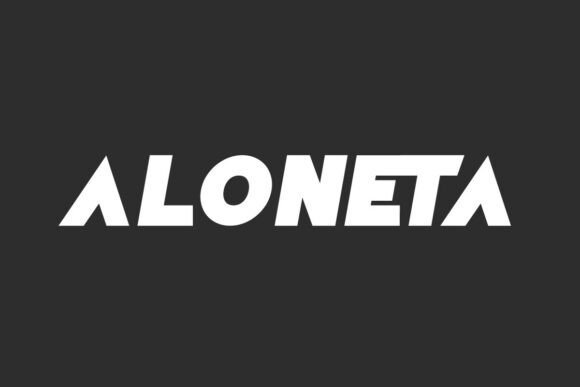
Have you ever been scrolling through social media, and suddenly, a bold, eye-catching font catches your attention? That’s the magic of typography. For designers, the right font can elevate a design from good to great, making it stand out in a crowded digital landscape. And that’s exactly what Aloneta Font is designed to do – add a dynamic touch to your design, making it unforgettable.
Aloneta Font is a modern racing display font that’s perfect for a wide range of designs, from brand image and custom design to invitations and product packaging. Its versatility and readability make it a valuable asset for designers, allowing them to create stunning visuals that grab attention and leave a lasting impression. Whether you’re working on a digital project or a print campaign, Aloneta Font is the perfect choice to make your design stand out.
Aloneta Font Key Features
- Font Family: Aloneta is a modern sans-serif font family designed for digital use.
- Size: The font family includes 8 font weights, ranging from Light to Black, with corresponding italic styles.
- Resolution: Optimized for use at high resolutions, making it suitable for print and digital applications.
- Unique Characteristics: Aloneta features a clean, geometric design with a focus on legibility and clarity, making it ideal for body text and display use.
Designer Review: Aloneta Font
Overall, I have mixed feelings about the Aloneta font. ✨ One thing that I think it does well is the balance of elegance and sophistication. It’s a versatile font that can be used for a variety of purposes, from titles to body text.
Some of the specific features that I like about Aloneta include:
- ✨ Clean and modern design
- ✨ Easy to read, even at small font sizes
- ✨ Supports a wide range of languages
- ✨ Suitable for digital and print applications
However, I do have a few concerns about Aloneta. ⚠️ One of the main limitations is that it can feel a bit too uniform and lacks personality. It may not be the best choice for projects that require a lot of flair or creativity.
Another issue is that Aloneta may not be the most effective font for certain types of text, such as long blocks of copy or technical writing.
Overall, I think Aloneta is a solid choice for designers who need a clean and professional font. However, it may not be the best fit for every project or client.
Tips for Getting the Most Out of Aloneta Font
Here are some tips to get the most out of Aloneta Font:
– Use Aloneta Font in combination with other elegant fonts for a sophisticated look.
– Experiment with different font sizes and styles to create visual interest.
– Use Aloneta Font in headings and titles to create a strong brand identity.
Aloneta Font is commonly used in:
– Luxury brand marketing materials
– High-end product packaging
– Fashion and beauty branding
Alternatives to Aloneta Font for Designers
Great Vibes Font is a modern script font that is perfect for creating a unique and elegant look. It is ideal for use in logos, branding, and marketing materials where a touch of sophistication is required. Great Vibes Font has a more refined and elegant feel compared to Aloneta Font, which makes it a better choice for formal and professional applications.
Carolyna Pro Font is a elegant and refined script font that is designed for use in high-end branding and design projects. It has a more subtle and sophisticated feel compared to Aloneta Font, making it a better choice for luxury brands and high-end marketing materials. Carolyna Pro Font is ideal for use in logos, packaging, and advertising where a touch of elegance is required.
Alex Brush Font is a beautiful and elegant script font that is perfect for use in creative and artistic projects. It has a more whimsical and romantic feel compared to Aloneta Font, making it a better choice for projects that require a touch of personality and flair. Alex Brush Font is ideal for use in logos, branding, and marketing materials where a creative and artistic look is required.